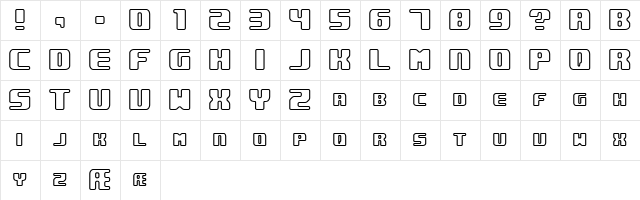
Underwhelmed Outline (BRK) Regular
Design Context for Underwhelmed Outline (BRK) Typeface
Underwhelmed Outline (BRK) is built around its visual character rather than neutral utility — its distinctive forms are designed to make an impression at display sizes.
Font Pairing: Pair with a clean neutral sans-serif for body copy to let Underwhelmed Outline (BRK)'s character lead without overwhelming the composition.
Pro Tip: Use Underwhelmed Outline (BRK) exclusively at display sizes — it was designed to be seen, not read at length. Let a neutral companion handle body copy.